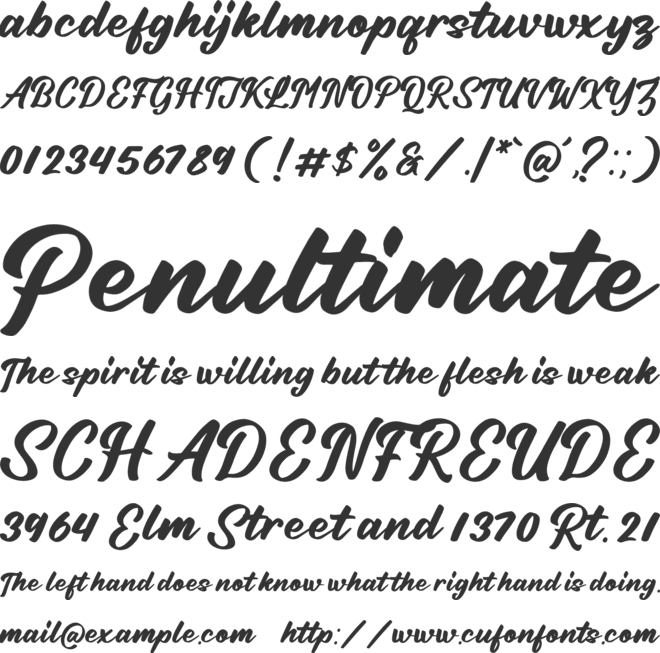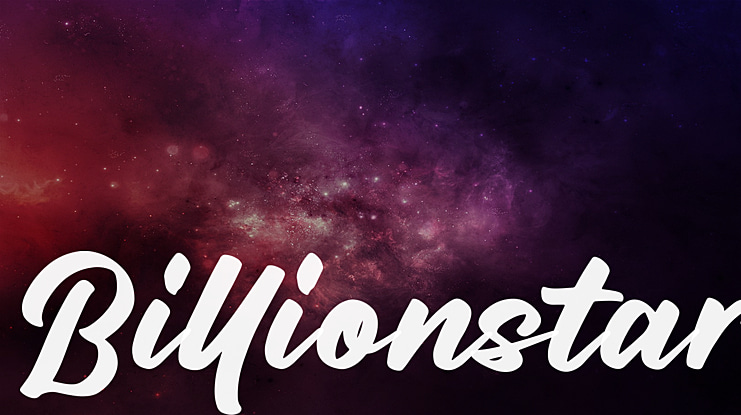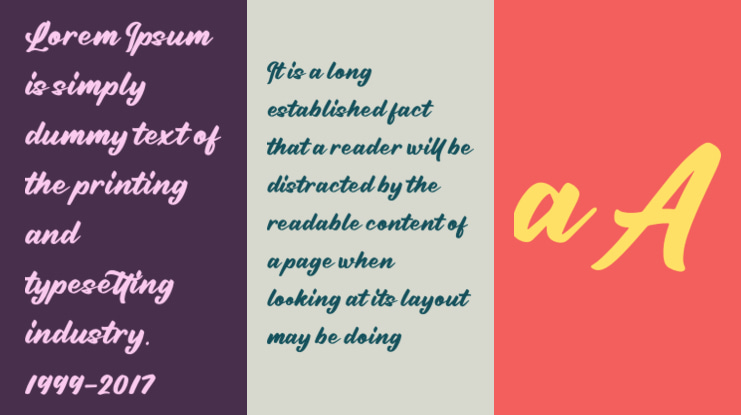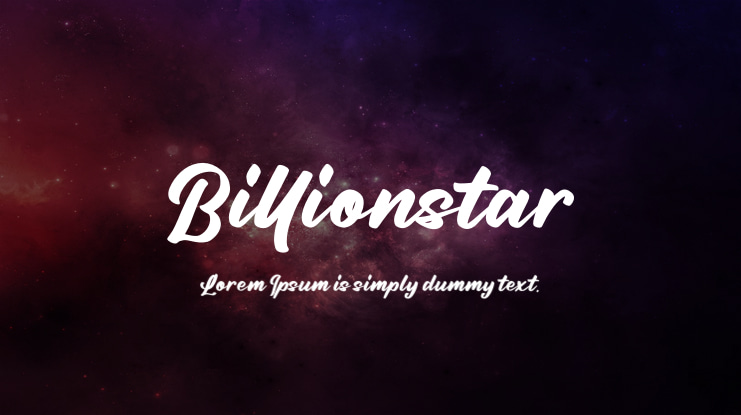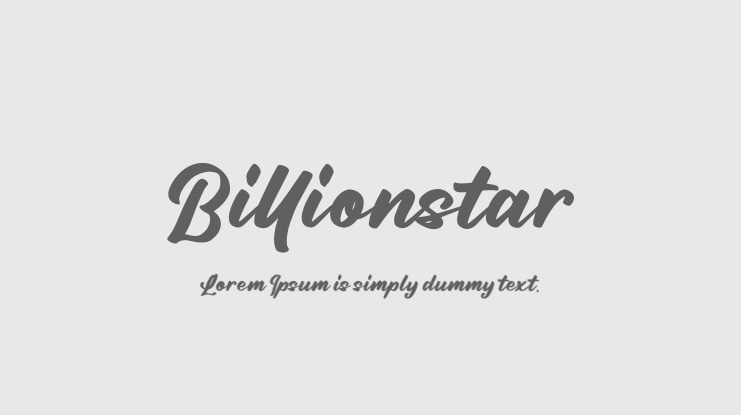
Billionstar Font
Billionstar is a stylish a signature font with 2 styles : Reguler and Italic.
It is perfect for branding, wedding invites and cards, christmas card, branding, logos, product packaging, invitation, qoutes, t-shirt, label poster etc.
Billionstar Features :
- Uppercase
- Lowercase
- Number & Punctuation
- Ligatures
- Alternates
- Swash